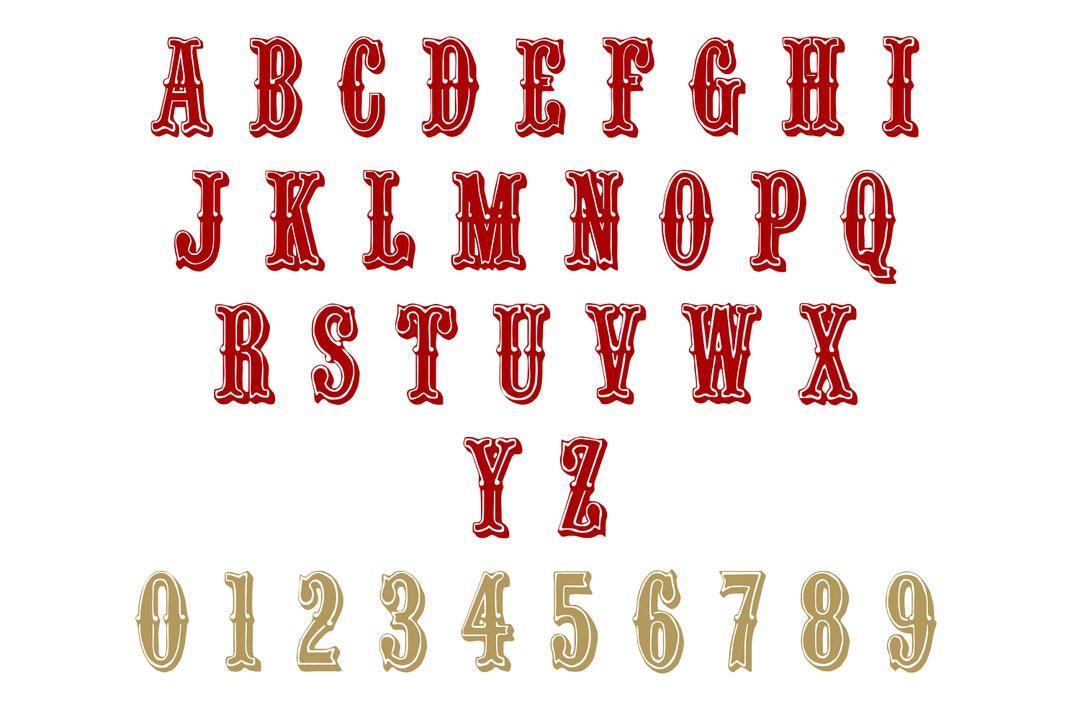
Quentin Cabs Font . Web quentin caps font is a high quality vintage font that is designed by dieter steffmann and is available for free download personal & commercial use. Web licensed for commercial use.
Web quentin caps font is a old western font and was created on jun 3, 2001. Since then, it has been. Download and install the quentin caps font by dieter steffmann.
Quentin Cabs Font - Since then, it has been. Web licensed for commercial use. Web quentin caps font is a fancy, retro font designed by dieter steffmann. Web quentin caps font | dafont.com english français español deutsch italiano português. Quentin caps font is free for both personel and commercial usages.
Quentin Cabs Font - Web quentin caps font is a fancy, retro font designed by dieter steffmann. Quentin caps font designer dieter steffmann created quentin fonts. Web quentin caps font is a old western font and was created on jun 3, 2001. Web licensed for commercial use. Quentin caps font is free for both personel and commercial usages.
Quentin Cabs Font - Web quentin caps font is a fancy, retro font designed by dieter steffmann. Web quentin caps font is a high quality vintage font that is designed by dieter steffmann and is available for free download personal & commercial use. Quentin caps font is free for both personel and commercial usages. Quentin caps font designer dieter steffmann created quentin fonts. Web.
Quentin Cabs Font - It is a quality vintage type font. Web quentin caps font is a old western font and was created on jun 3, 2001. Web quentin caps font is a fancy, retro font designed by dieter steffmann. Web quentincaps is licensed under the 1001fonts free for commercial use license (ffc) gallery. Web licensed for commercial use.
Quentin Cabs Font - Web quentincaps is licensed under the 1001fonts free for commercial use license (ffc) gallery. Web quentin caps font is a fancy, retro font designed by dieter steffmann. Web quentin caps font is a old western font and was created on jun 3, 2001. Web quentin caps font is a high quality vintage font that is designed by dieter steffmann and.
Quentin Cabs Font - Download and install the quentin caps font by dieter steffmann. Web quentincaps is licensed under the 1001fonts free for commercial use license (ffc) gallery. Quentin caps font designer dieter steffmann created quentin fonts. Web quentin caps font is a old western font and was created on jun 3, 2001. Since then, it has been.
Quentin Cabs Font - Web quentin caps font is a high quality vintage font that is designed by dieter steffmann and is available for free download personal & commercial use. Download and install the quentin caps font by dieter steffmann. Web quentincaps is licensed under the 1001fonts free for commercial use license (ffc) gallery. Web quentin caps font | dafont.com english français español deutsch.
Quentin Cabs Font - Web quentin caps font is a high quality vintage font that is designed by dieter steffmann and is available for free download personal & commercial use. Download and install the quentin caps font by dieter steffmann. Web quentin caps font | dafont.com english français español deutsch italiano português. Web licensed for commercial use. Since then, it has been.